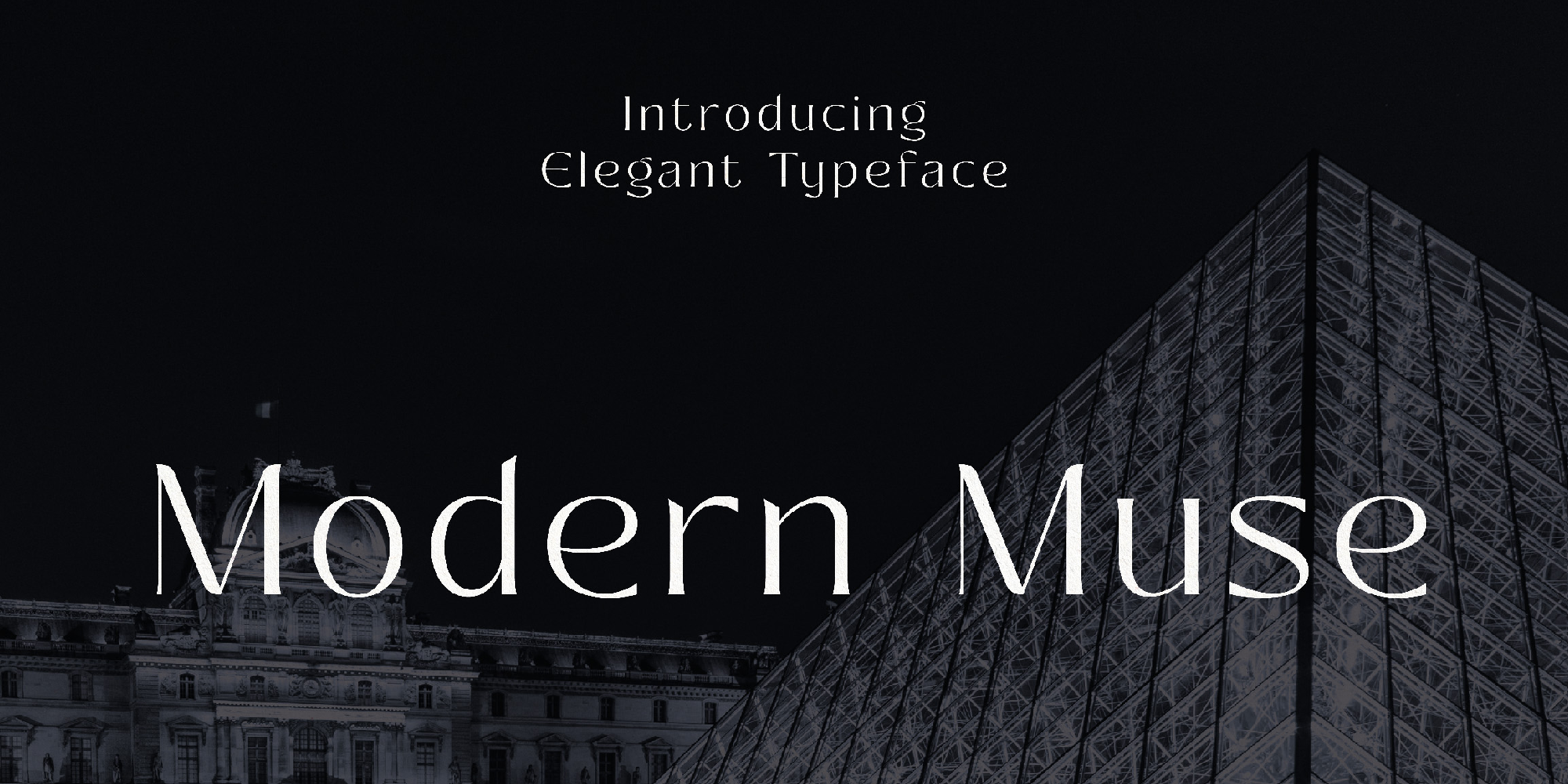
Modern Muse Font Free Download is a stylish and elegant serif typeface that effortlessly blends classic charm with contemporary design. Perfect for branding, editorial projects, invitations, and fashion-related designs, Modern Muse adds a sophisticated and artistic touch to your typography.
Its refined serifs and graceful curves enhance readability while giving your work a timeless and polished look. Whether you’re creating logos, magazines, or packaging, Modern Muse Font Free Download brings a touch of modern elegance to every letter.